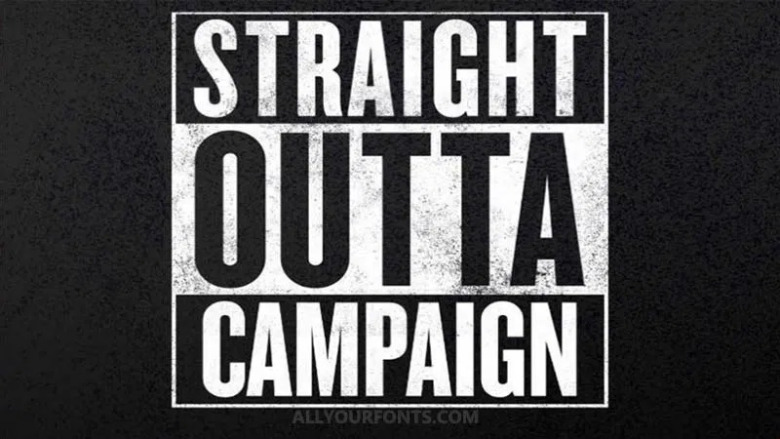
Straight Outta Compton Font
Presenting you to a movie font family the Straight Outta Compton Font. The Straight Outta Compton is an American biographical drama film that was first released on 11 August 2015. This film earned more than $200 million with a very low production budget of $50 million. The reason behind its success is his tremendous story. Therefore, a majority of peoples love that story.
Here I wanna discuss the font used for the title of Straight Outta Compton. The logo font of the film is very similar to “Knockout Font” or “Compacta Font”. So, It totally depends on you that which family you have chosen for your designs.
The Compacta font is created by ITC while the Knockout font is created by Hoefler & Co. Both of these font families have belonged to Sans serif fonts. And they feature the most alluring look, flawless style and effectively can containable. Thus, that is the main reason for a professional designer to use them for their unique and expensive designs.
Those well-liked fonts are best for a lot of design purposes. Like logo designs, textual video editing, making banners designs, invitation cards, wedding cards, labeling, photography, watermarks, printing purposes, magazines covers, and many others as well. Designing a whole website with the help of these fonts has also a rational idea.